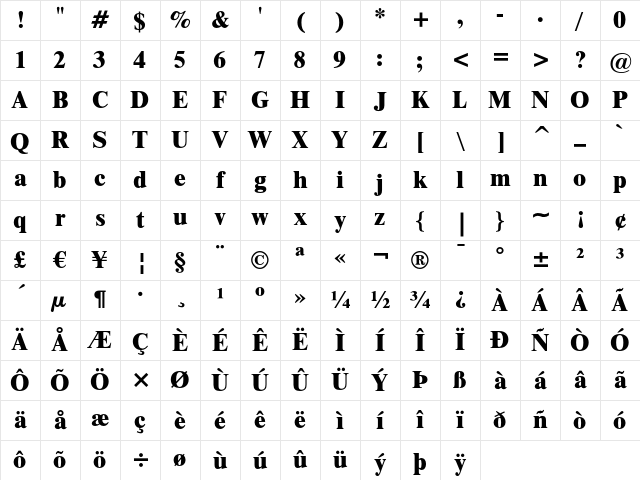
Dutch 801 Extra Bold
Style: Extra Bold
Dutch 801 Family
Dutch 801 Extra Bold
Complete Dutch 801 Extra Bold glyph index. Displaying only characters natively supported by Dutch 801 Extra Bold font.
Design Context for Dutch 801
Dutch 801 is a composed and adaptable typeface that performs quietly and consistently across a wide range of design contexts. Its bold stroke weight gives it real presence on the page.